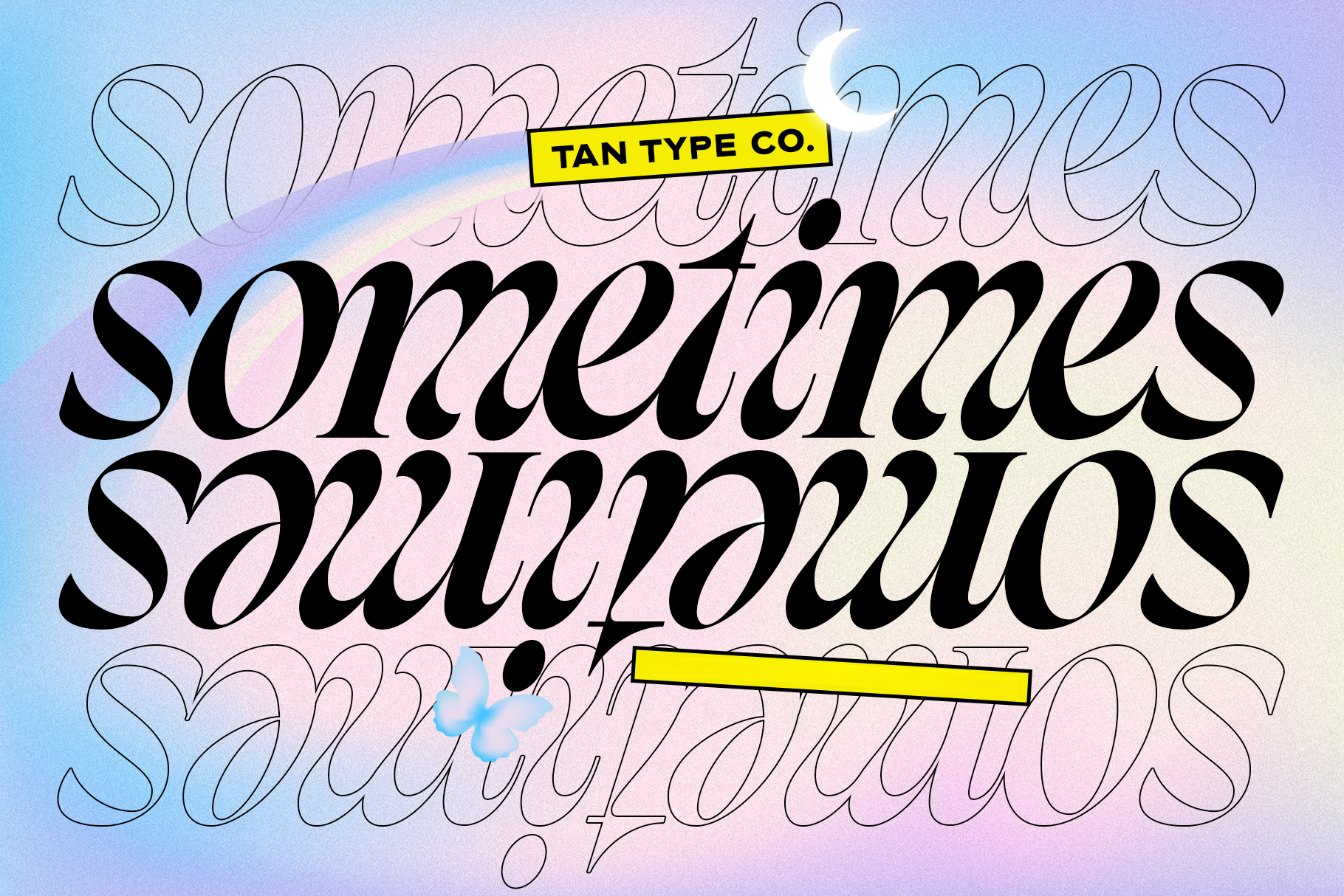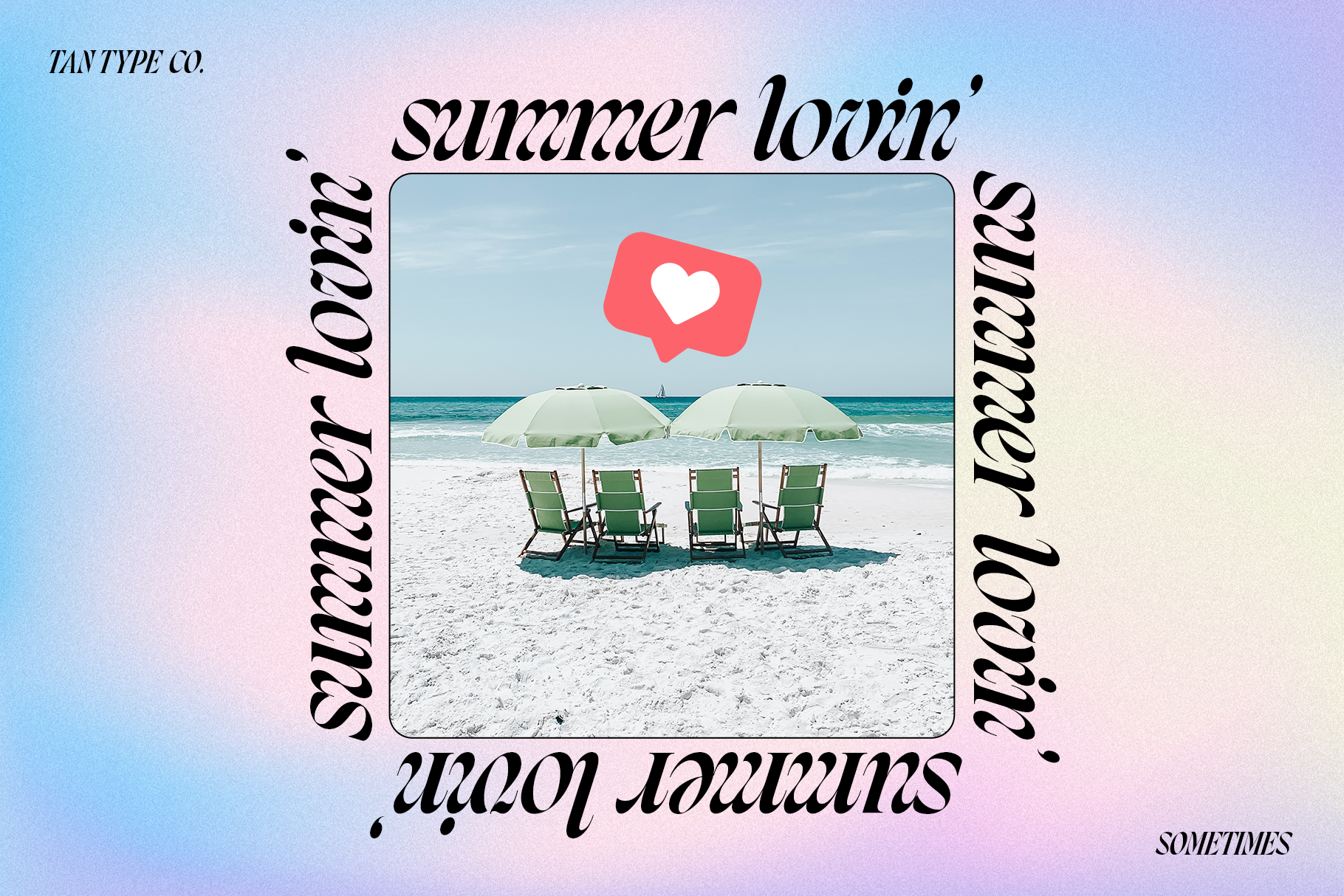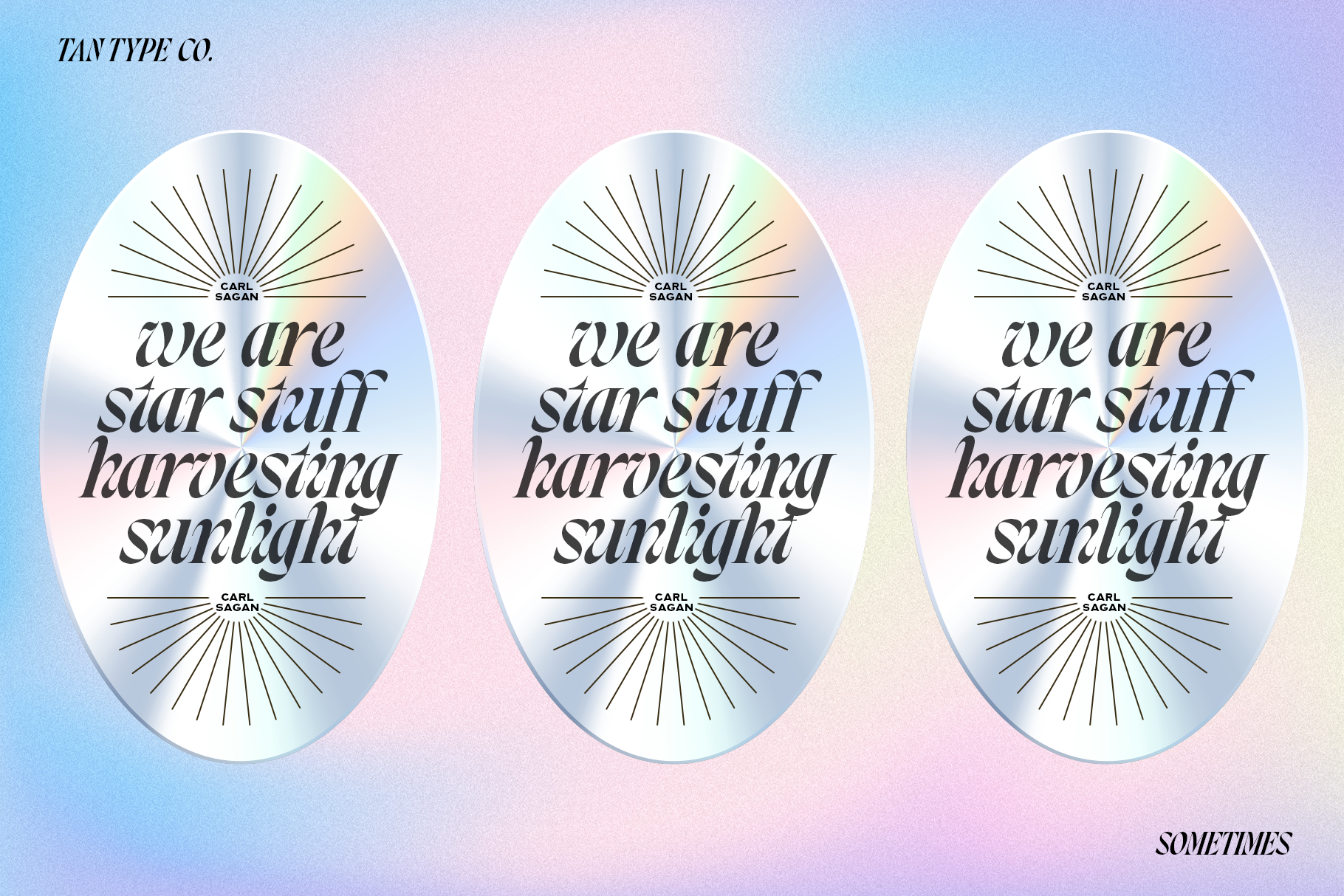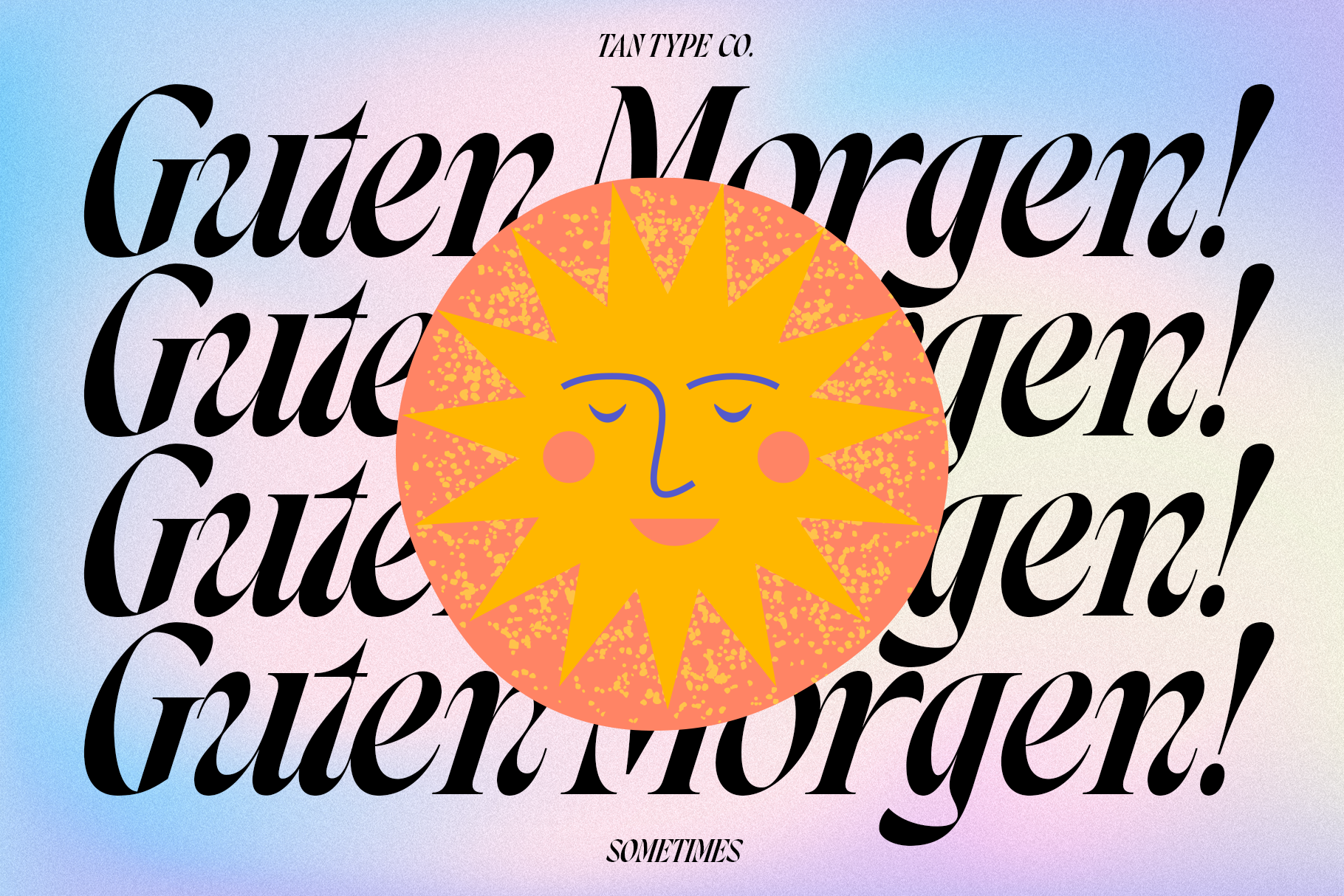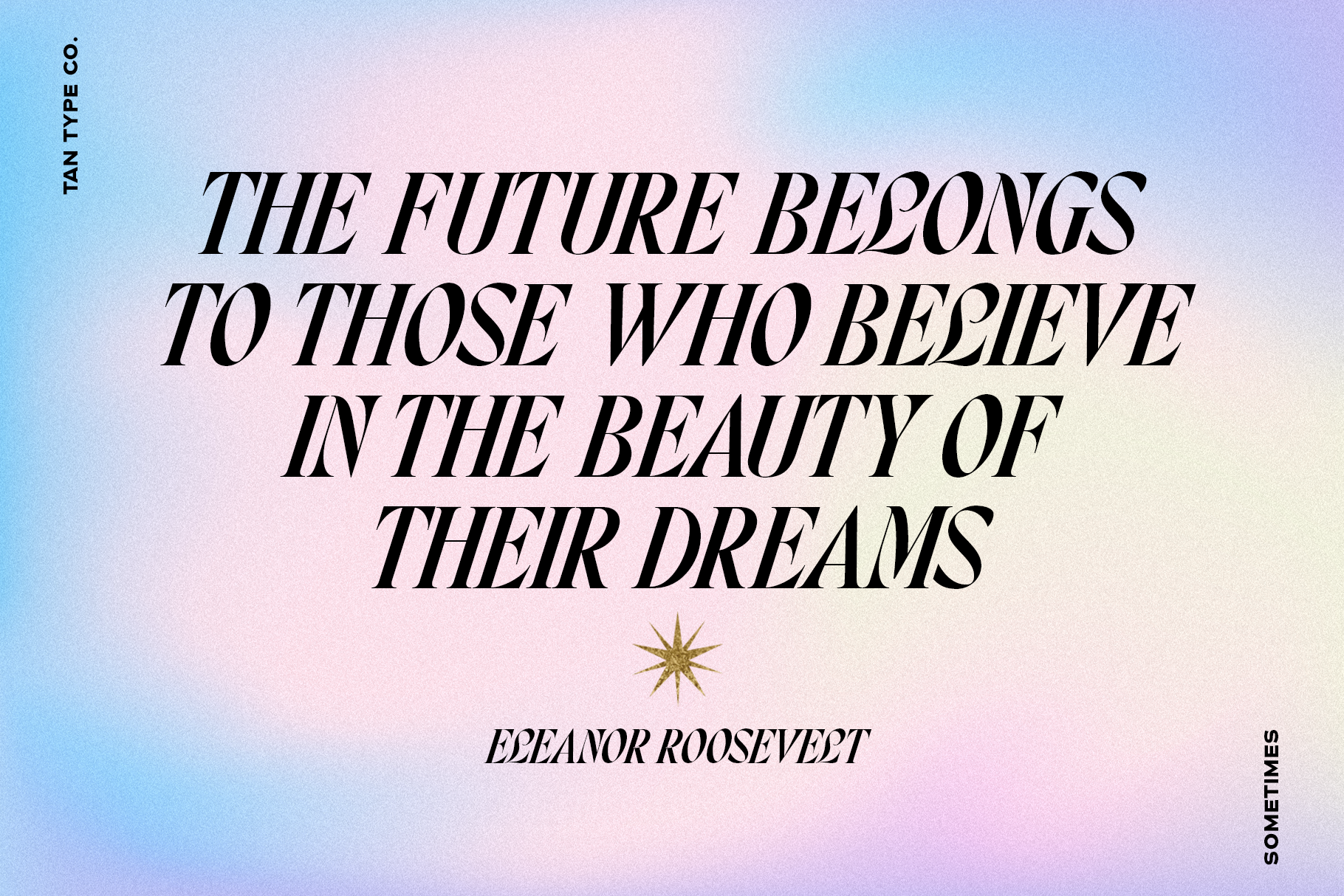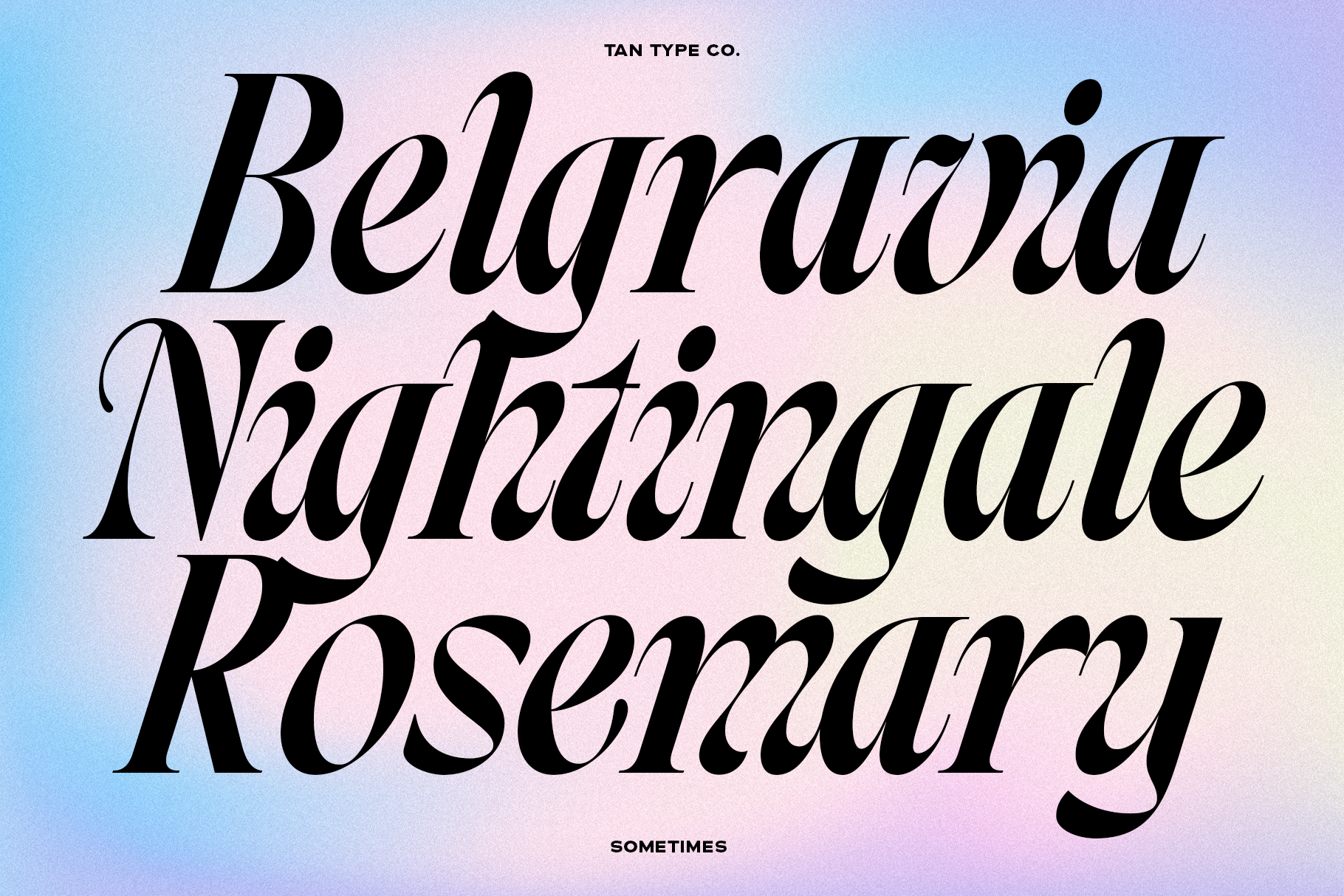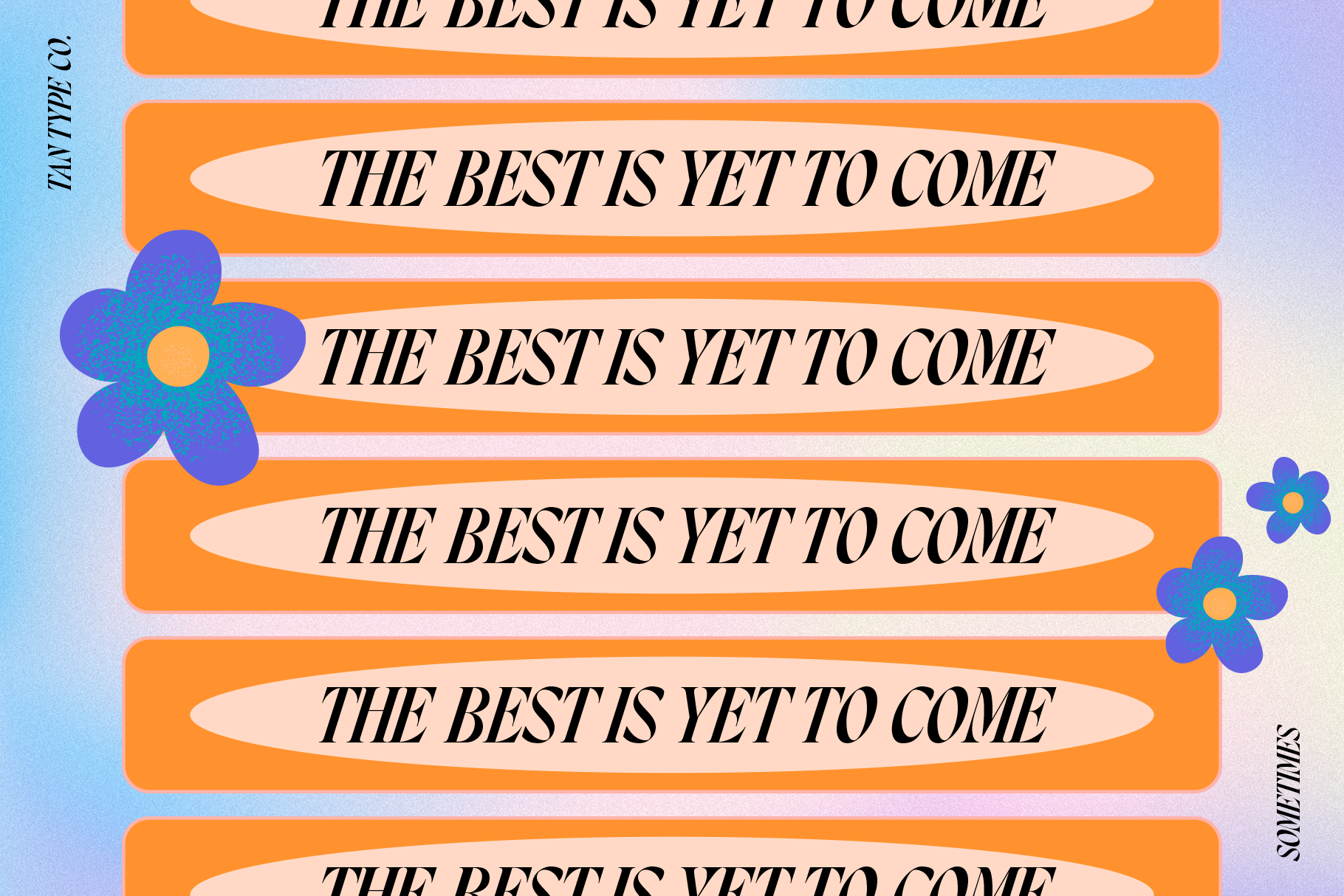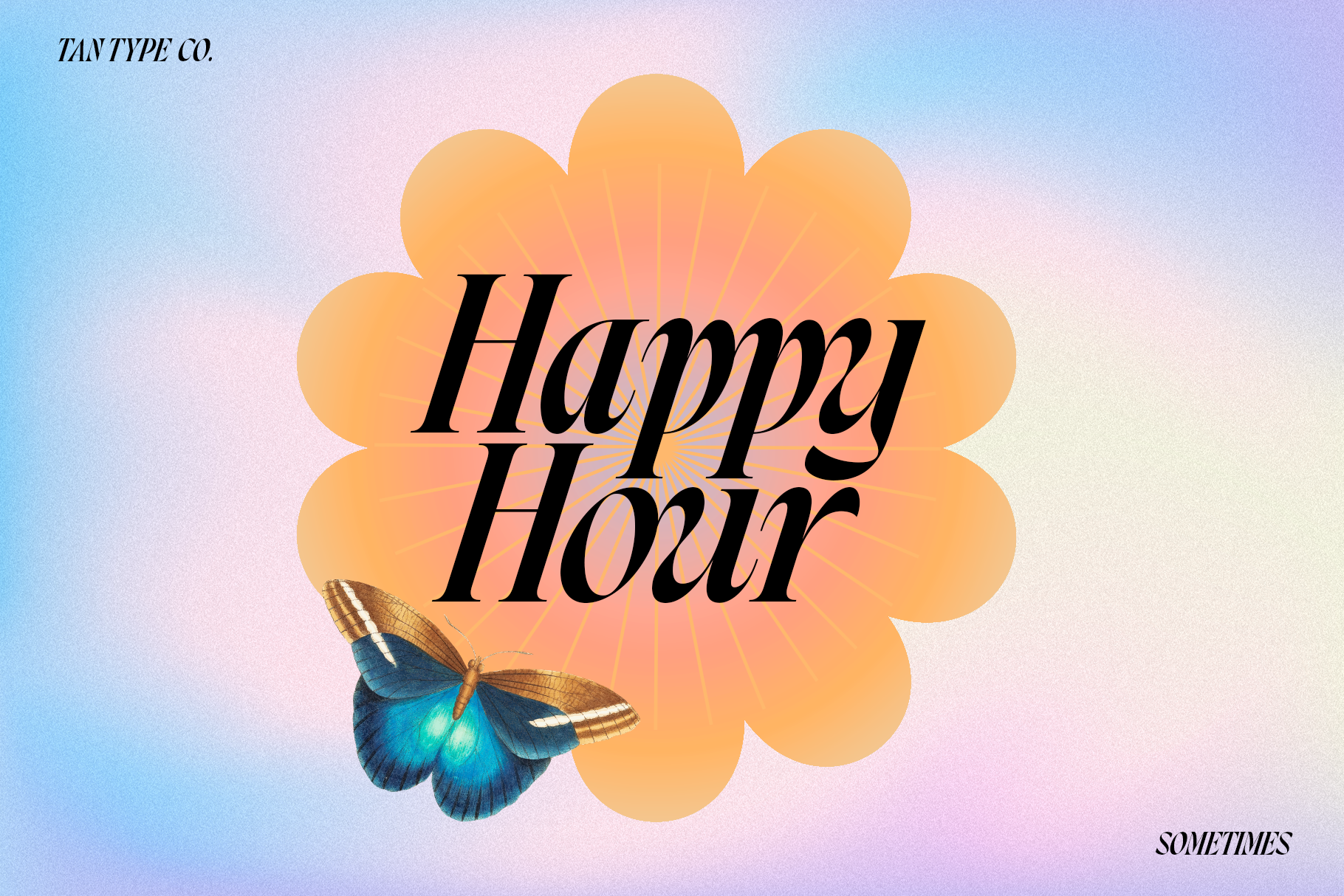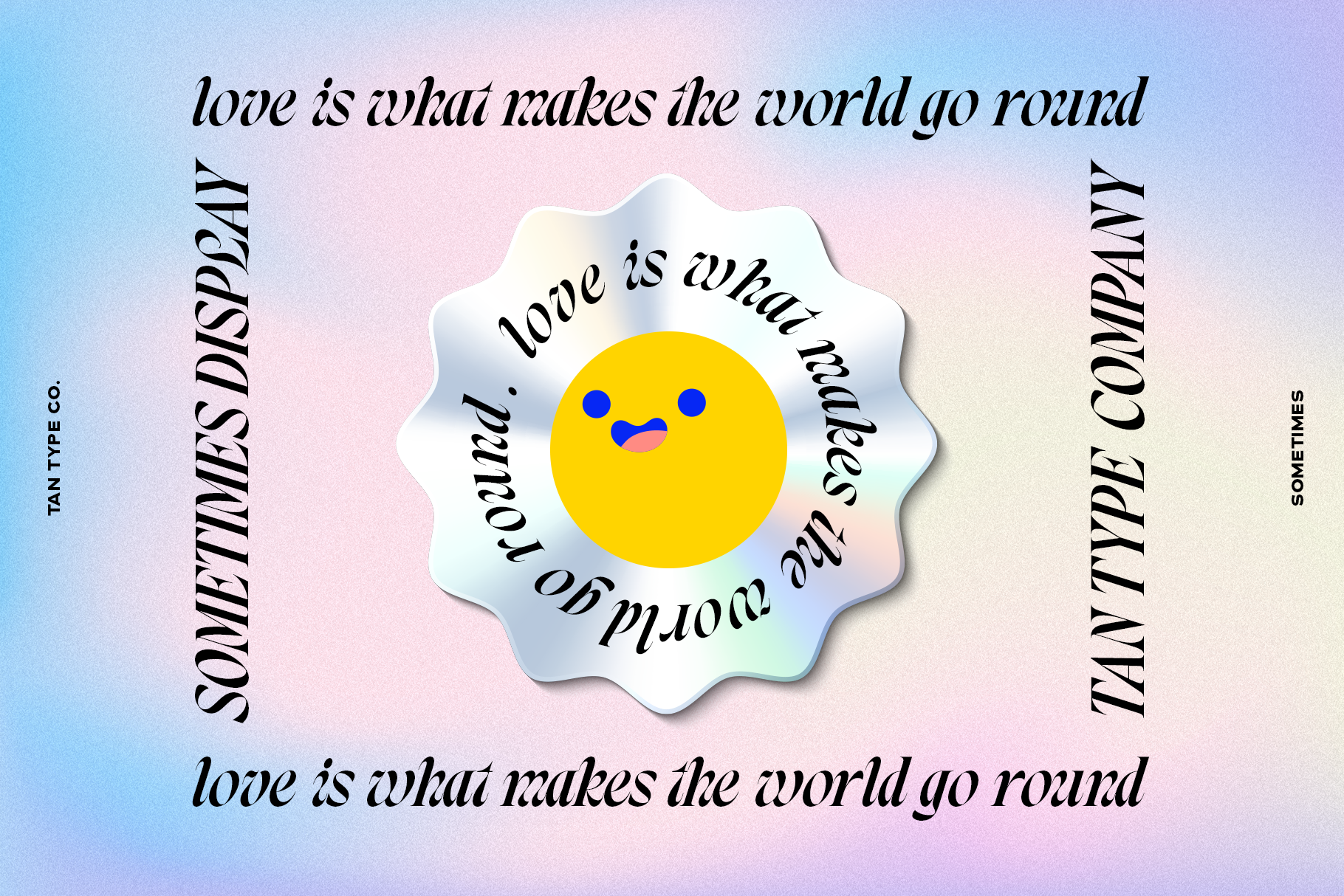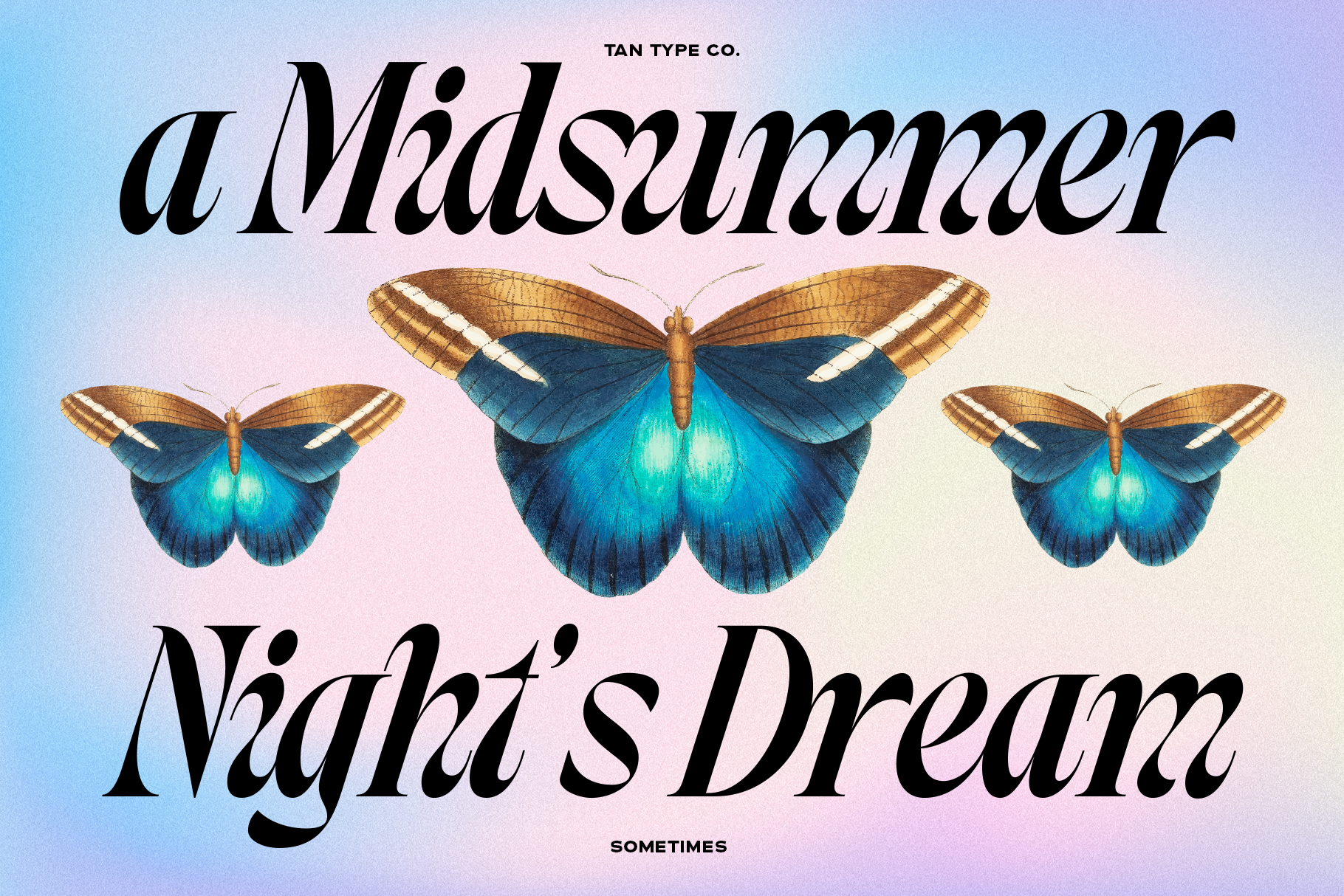
Sometimes is a dreamy, high-contrast serif with fluid curves and expressive elegance. Combining the sophistication of editorial serifs with whimsical personality, this typeface is perfect for fashion branding, magazine spreads, social media graphics, and expressive headlines. With both solid and outline styles, TAN Sometimes adds poetic flair and versatility to any creative project.